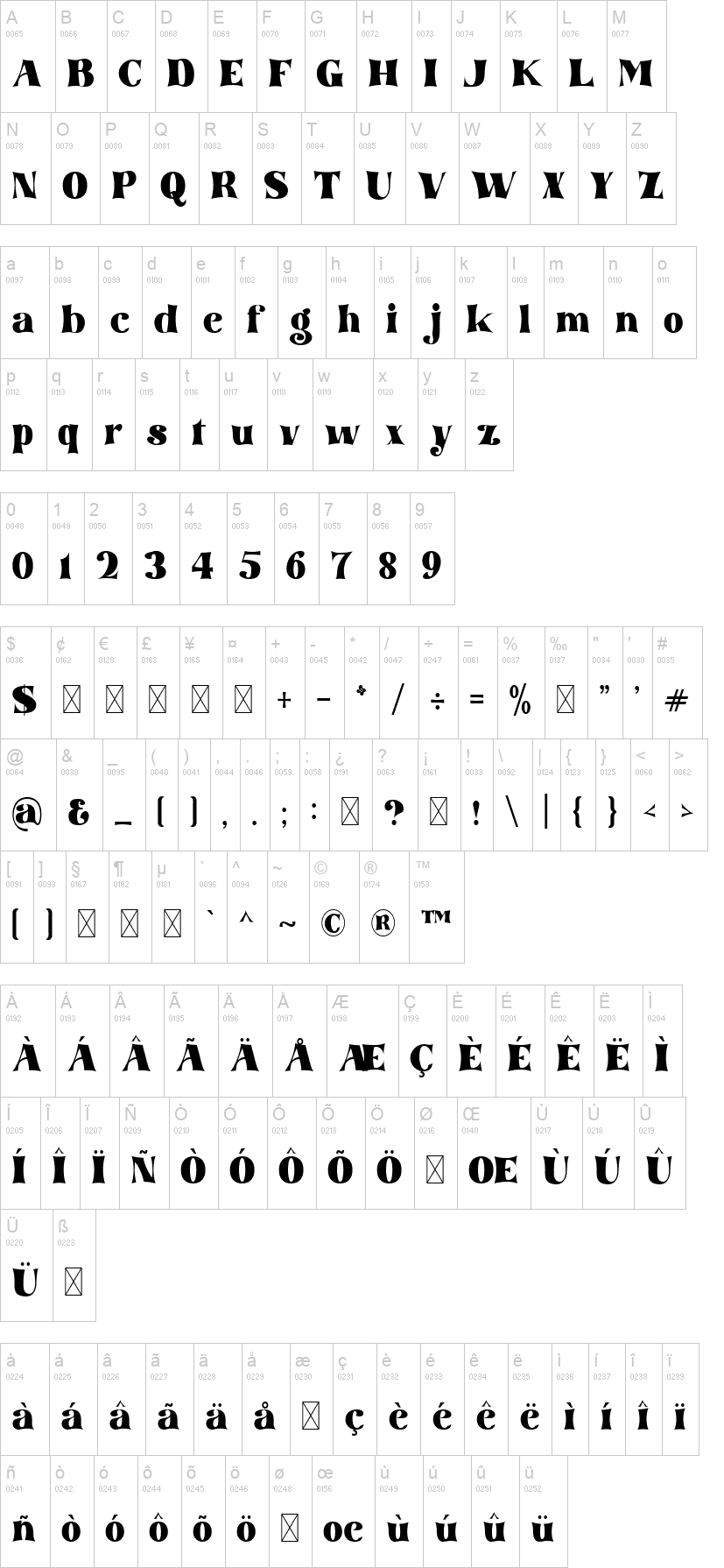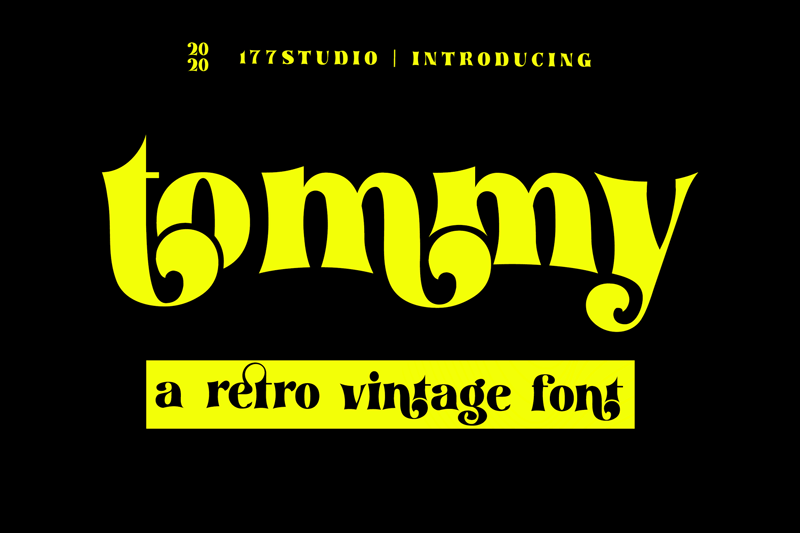
tommy font bold.ttfNote of the authortommy Retro Serif Font is a stylish font that is both retro and bold font. A brand new serif with a bonus sans for perfect pairing! I am constantly combining sans and serifs in my design work, and wanted to create the perfect combo for you too!